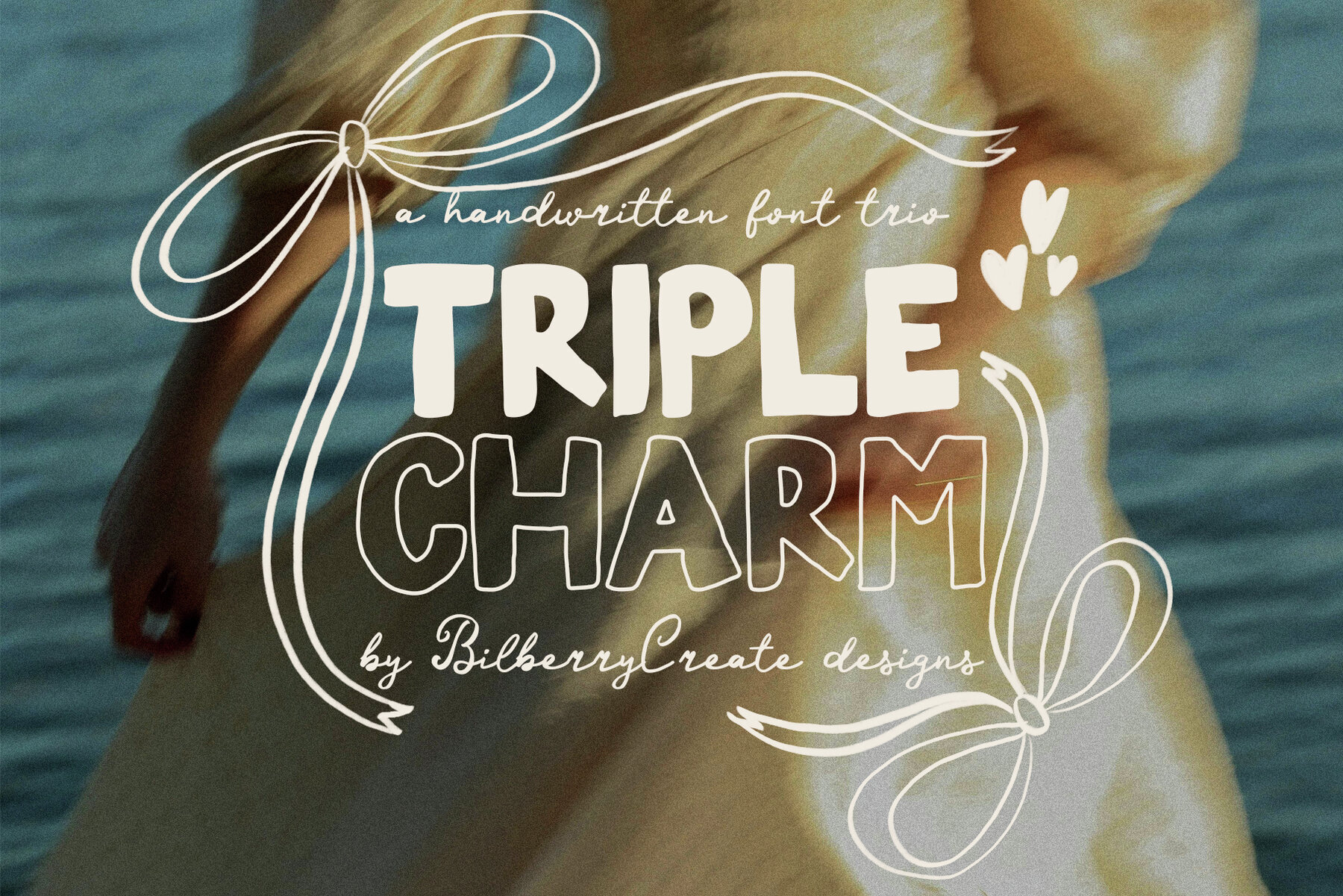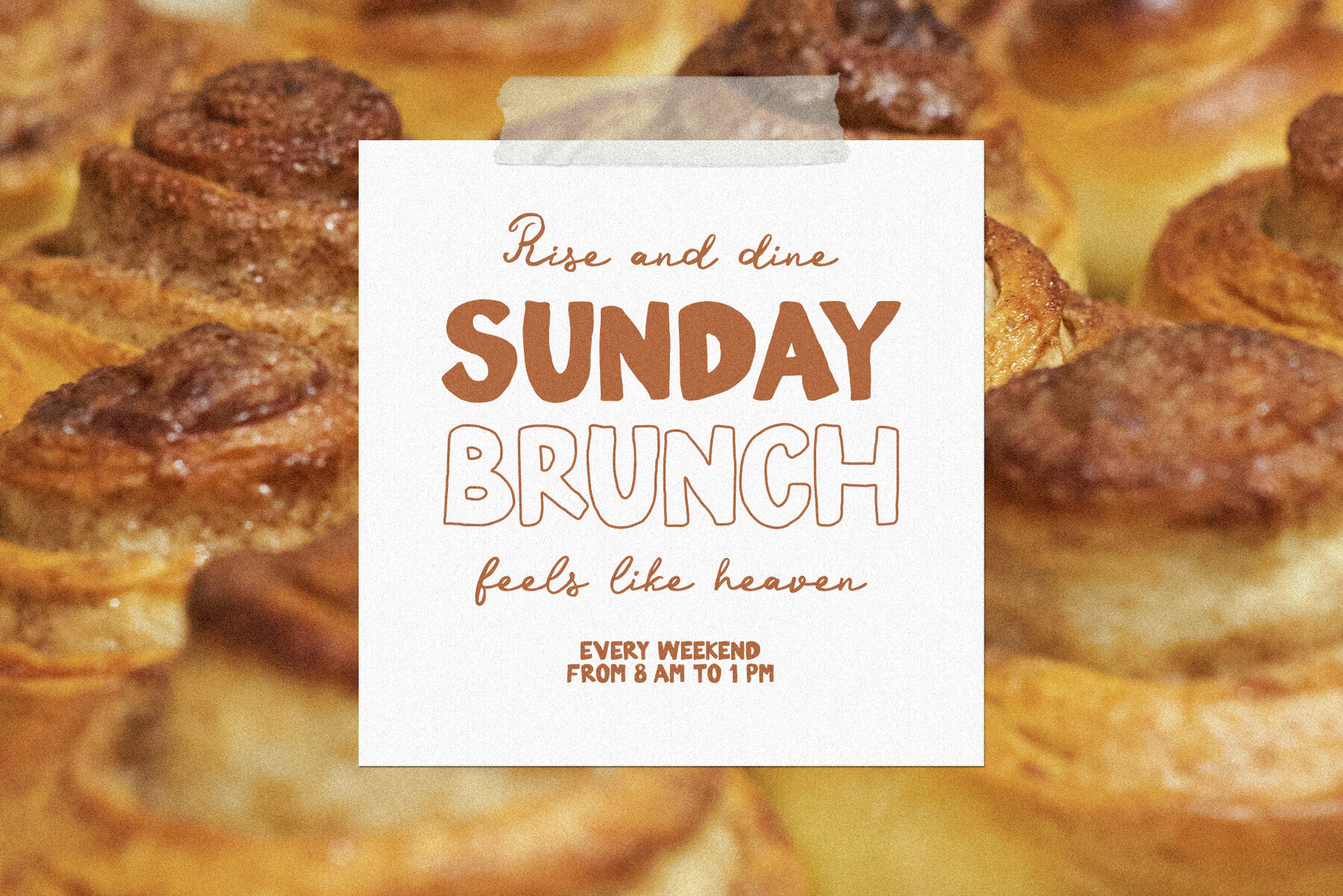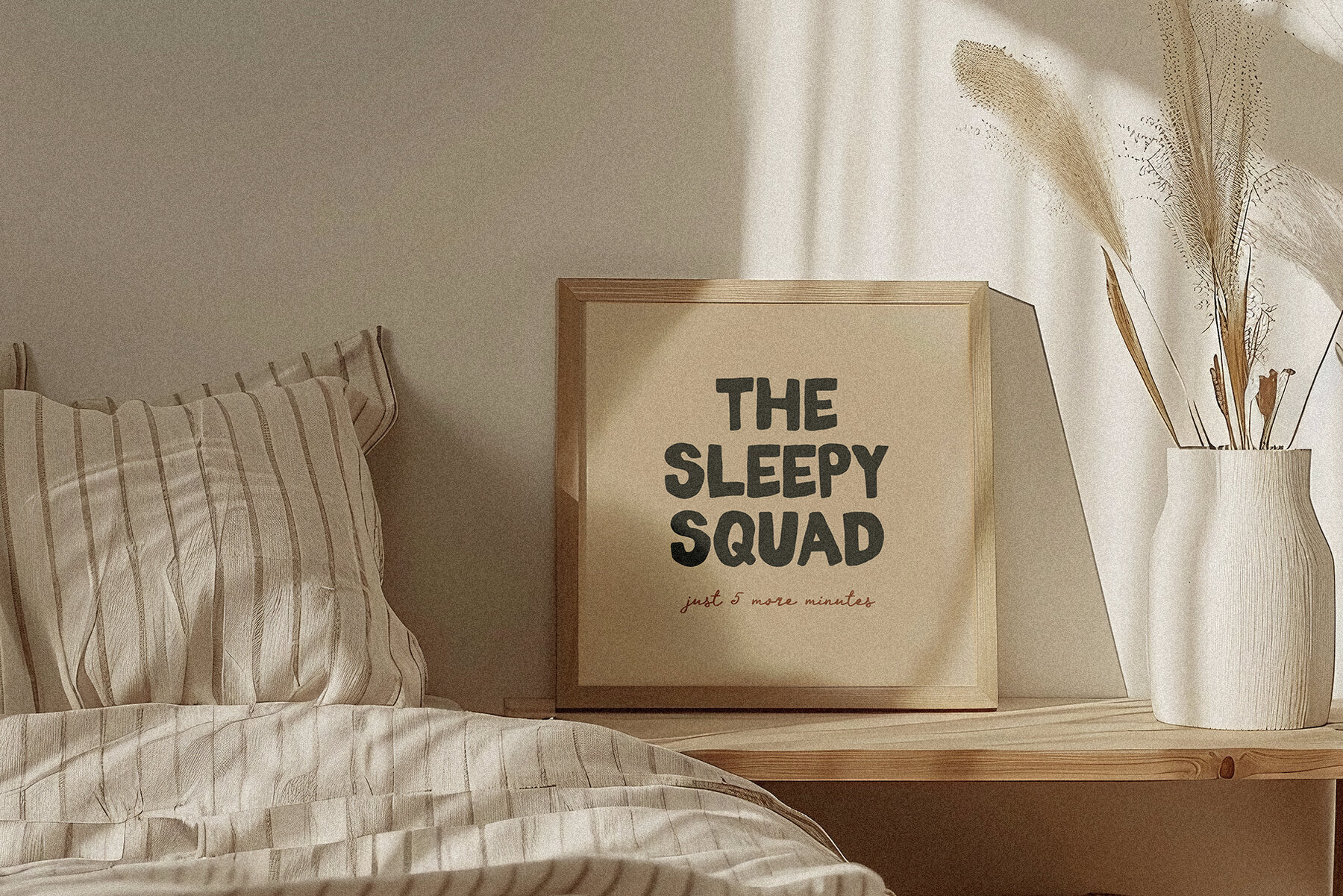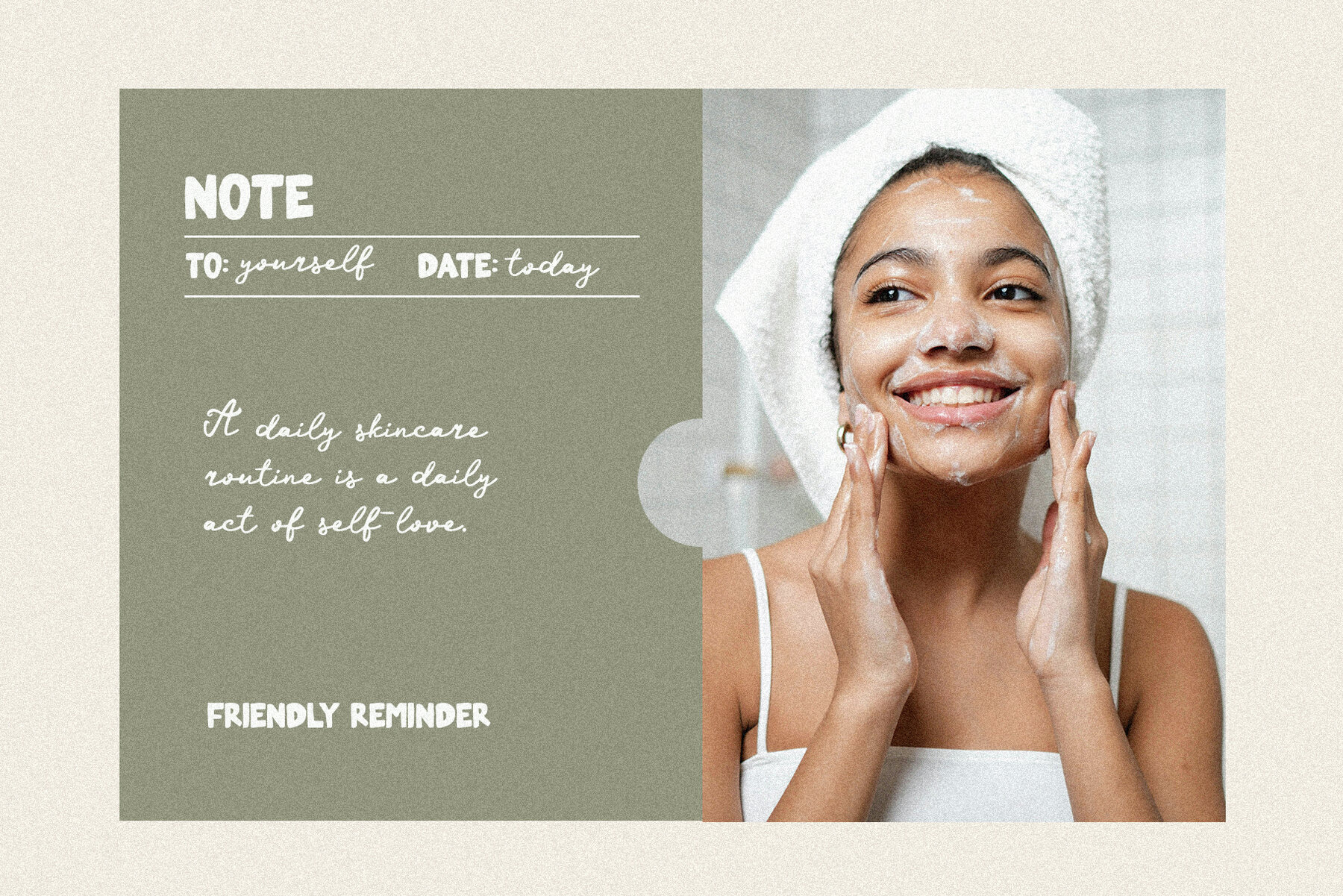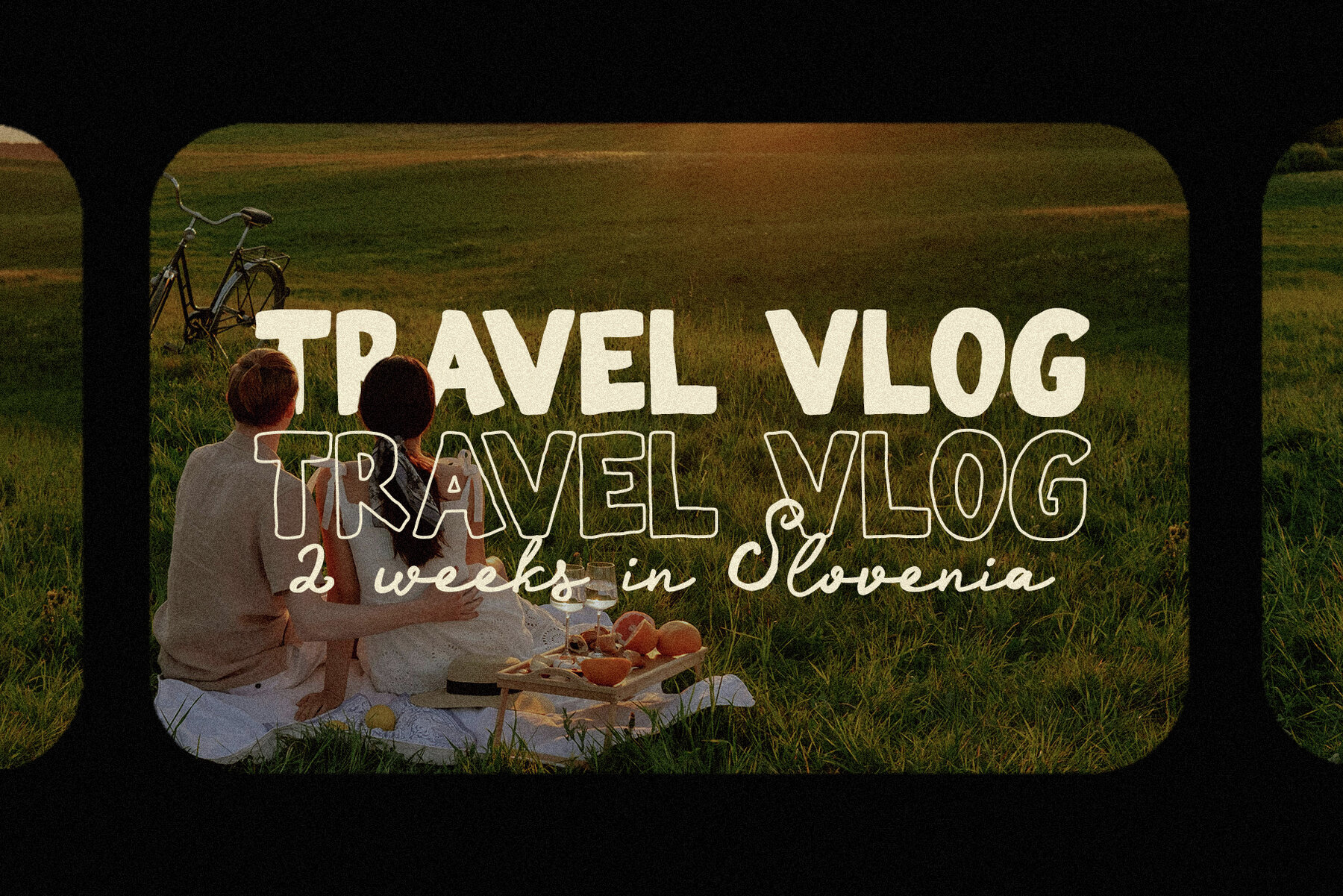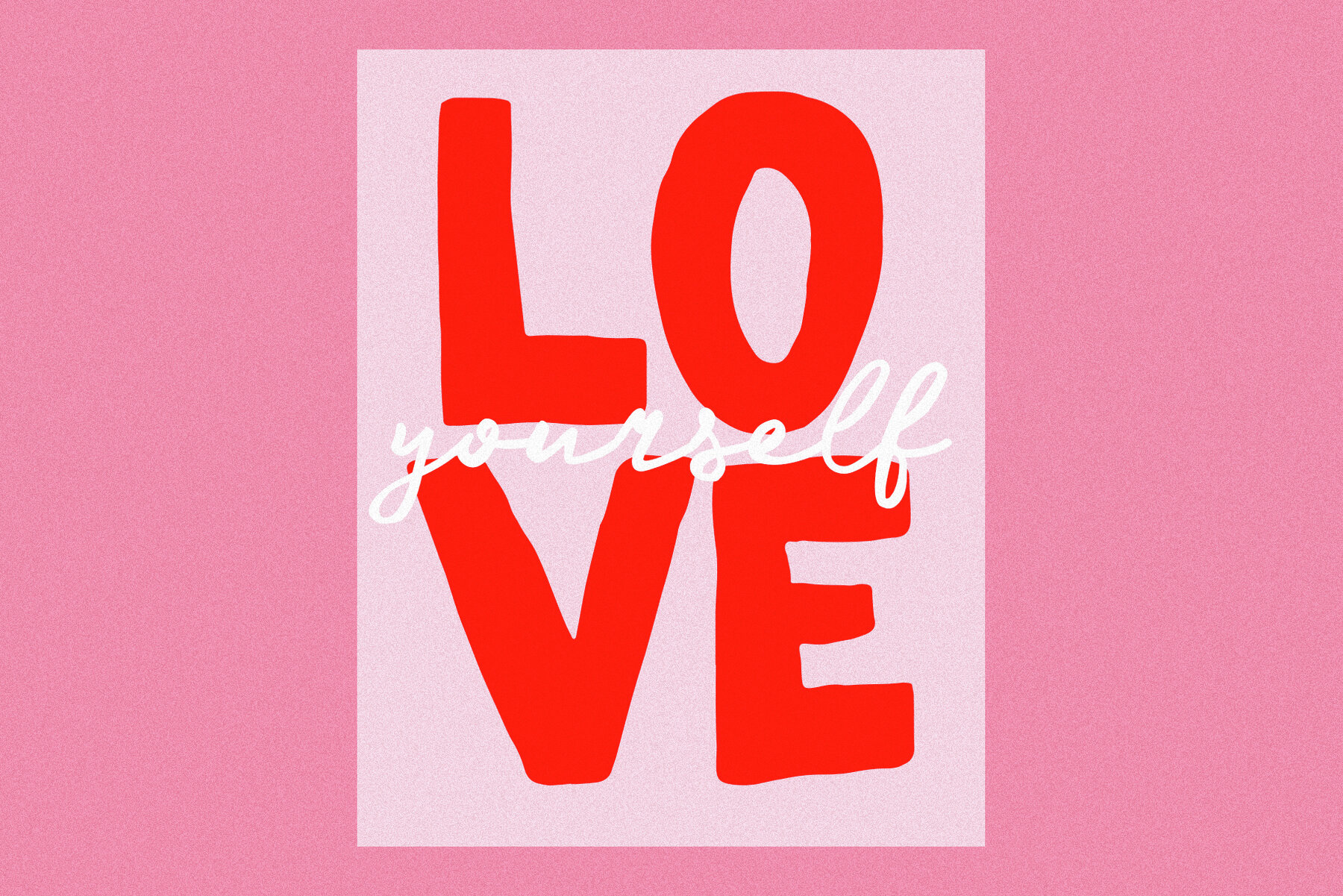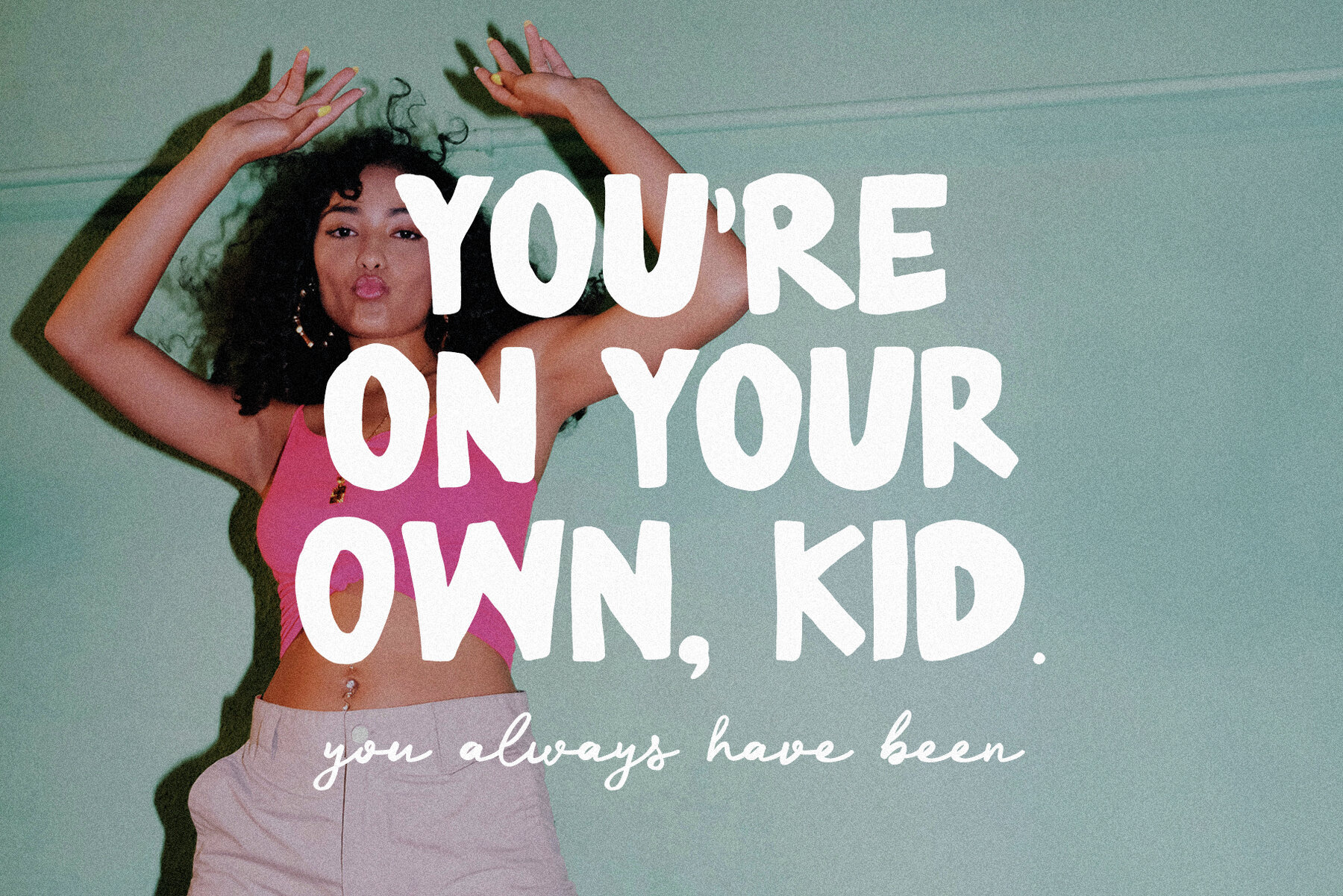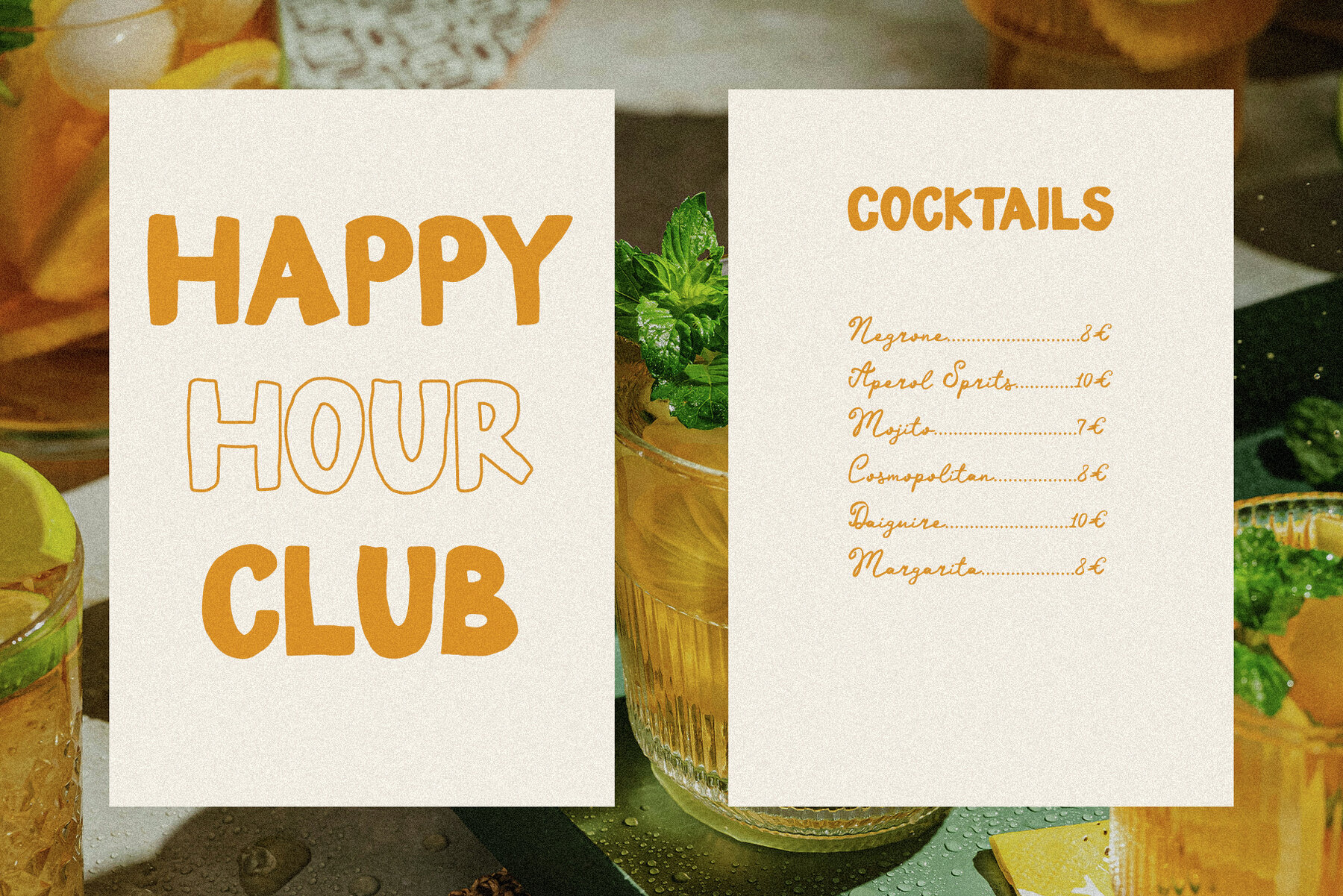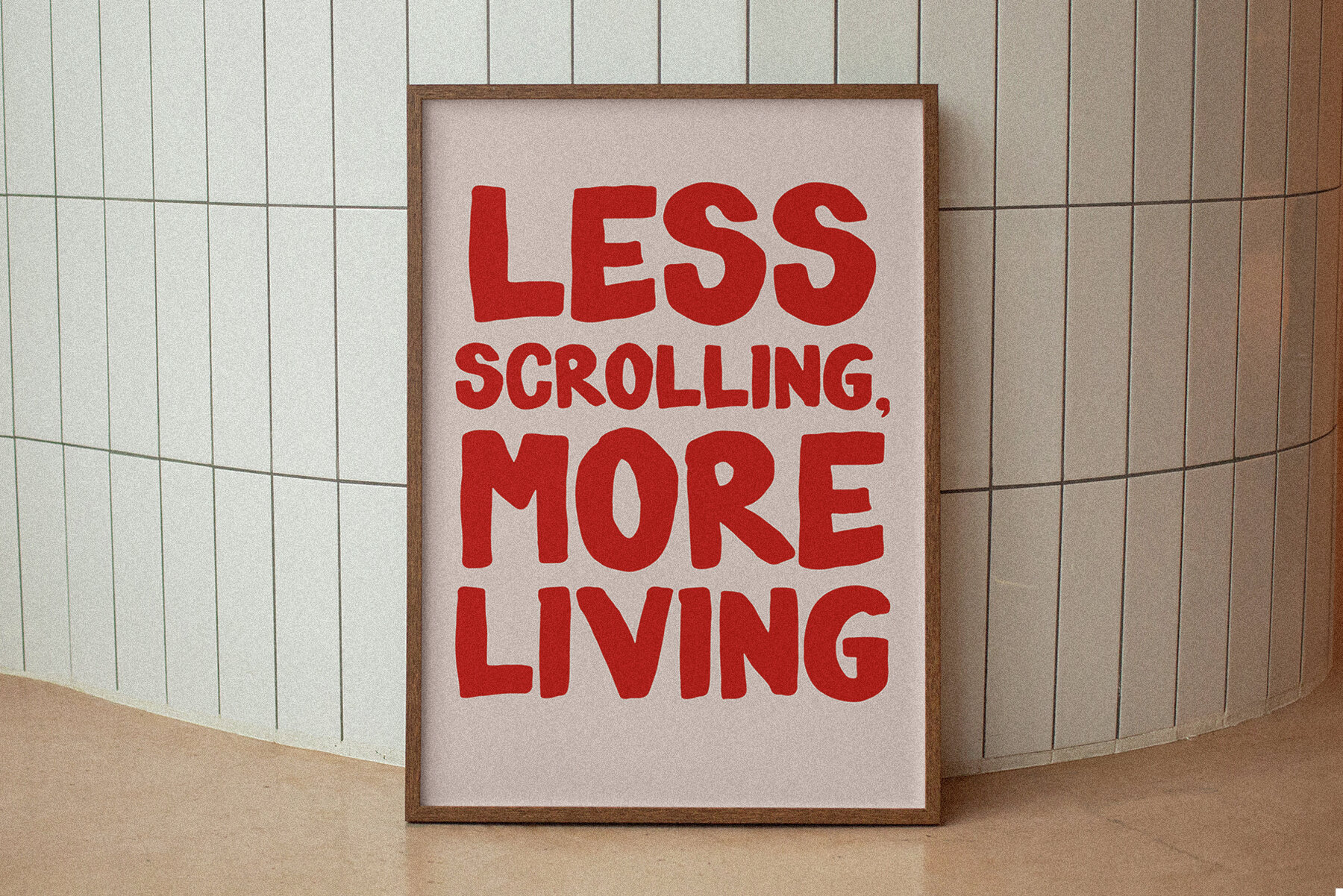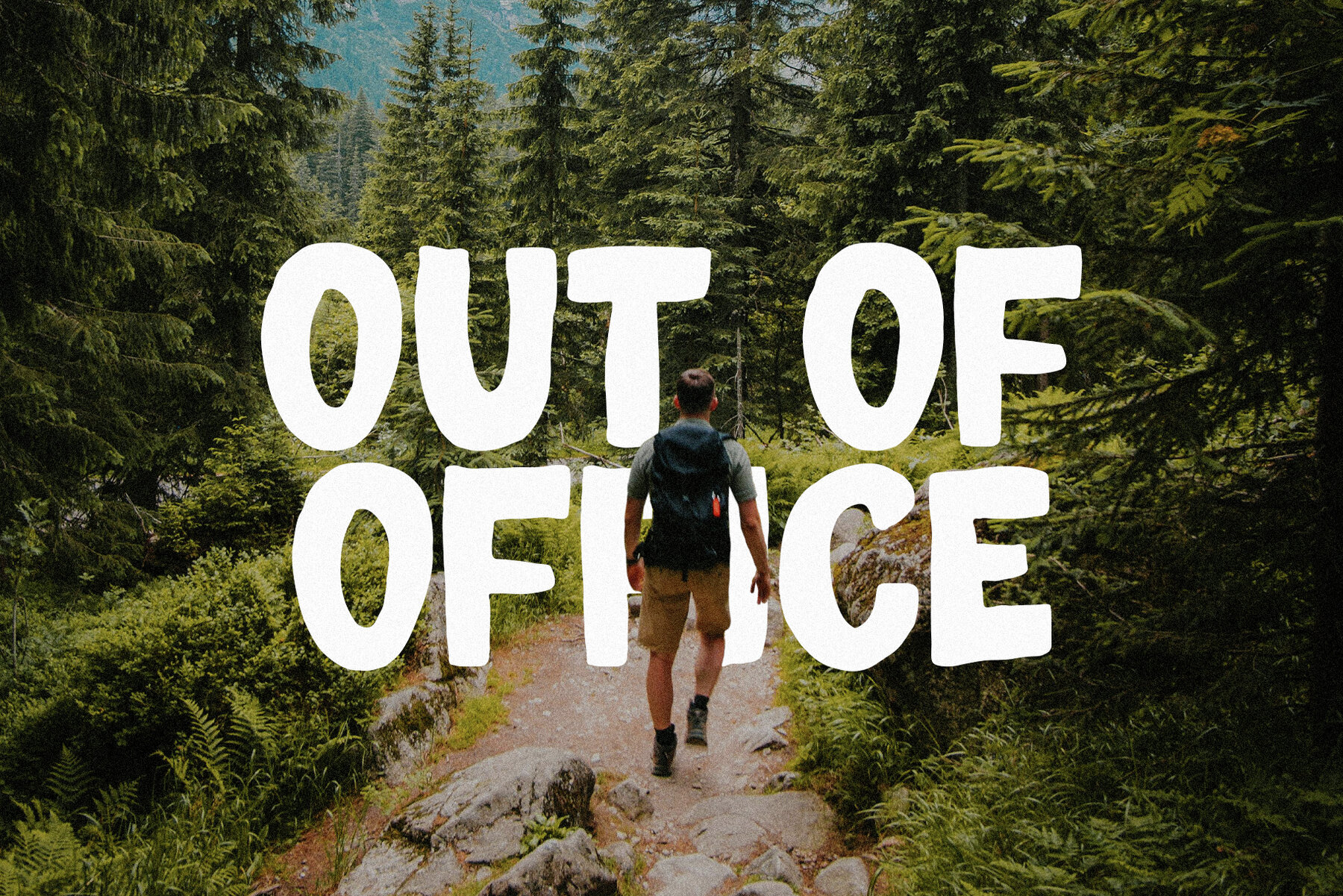
Triple Charm Font
Triple Charm Font Trio is a versatile collection of casual handwritten fonts tailored for graphic and digital design projects. This trio includes three distinct styles: Triple Charm Script, Triple Charm Sans, and Triple Charm Outline Sans. With its organic and charming appeal, this font pack is ideal for a variety of creative endeavors.
Use Triple Charm to craft logos, invitation and wedding cards, birthday greetings, home decor items, and holiday gift packaging. It's also suitable for party decorations and fabric prints. The fonts support multilingual characters, enhancing their usability across diverse design projects.
Explore the combination of script and sans-serif styles to infuse personality into your work, ensuring your designs stand out with a unique, handmade touch. Whether for personal or professional projects, Triple Charm Font Trio offers the flexibility and aesthetic appeal you need.